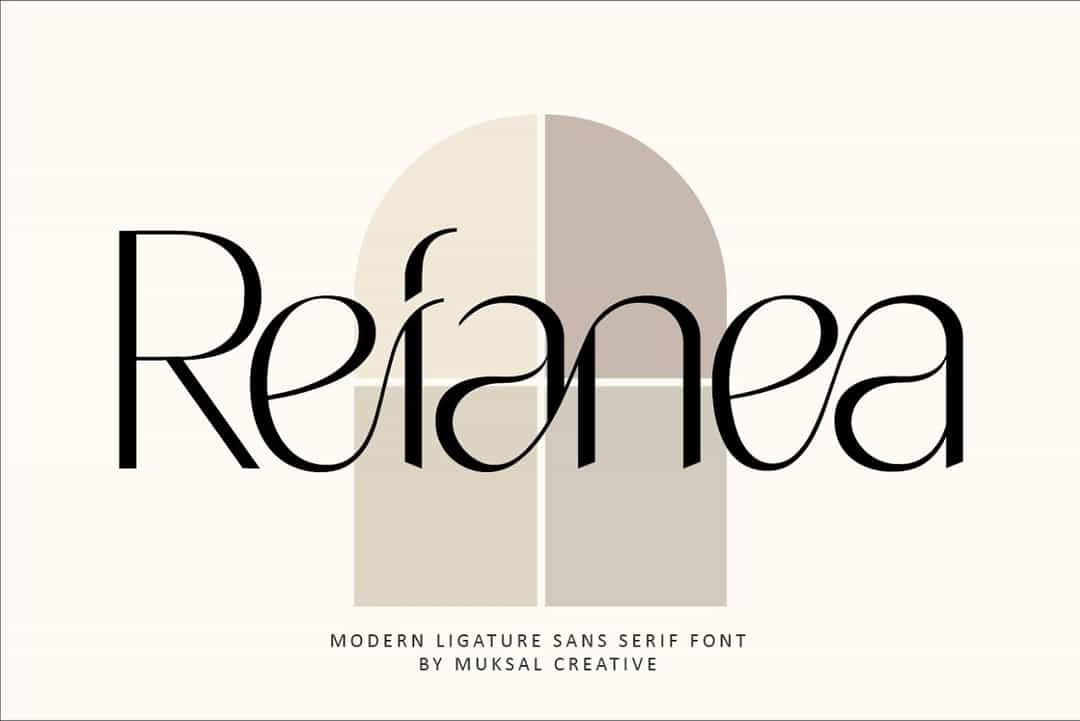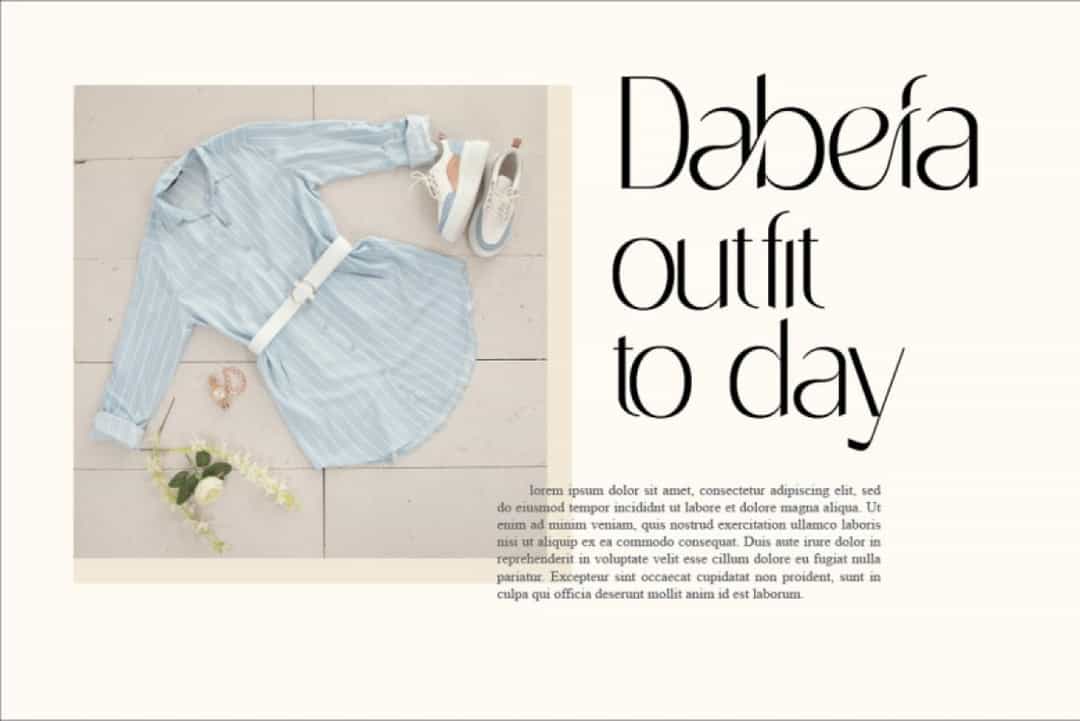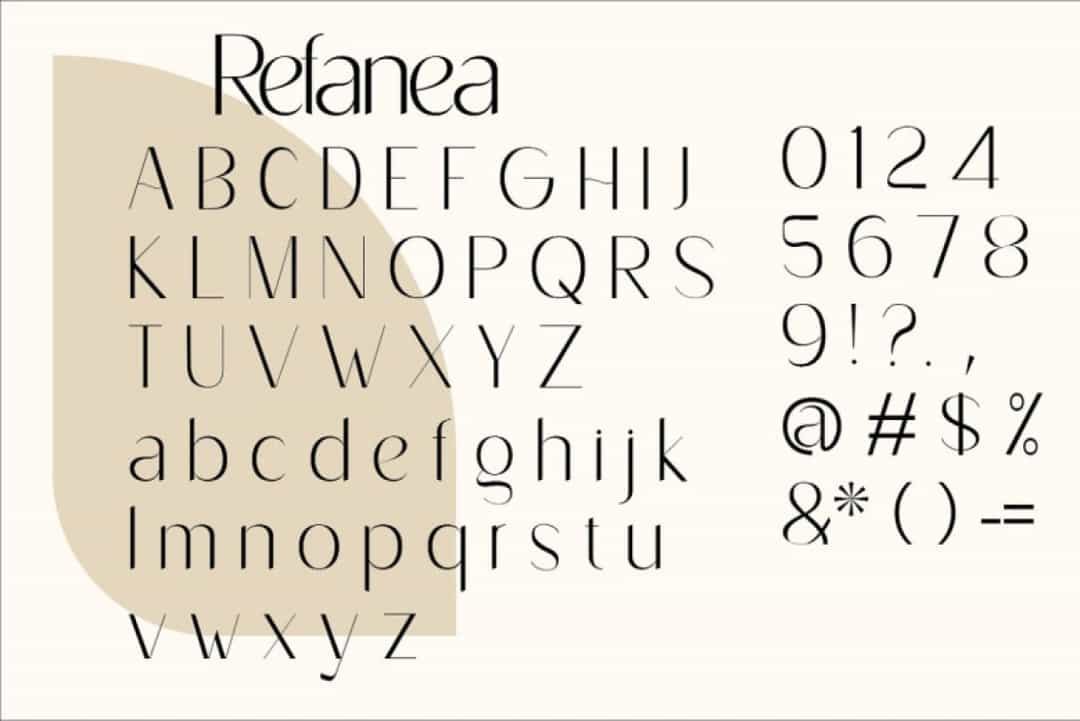
Discover Refanea Font, part of the Sans Serif collection—a versatile and unique font perfect for adding a personal touch to your projects. Download it for free and enjoy crafting designs with style, from invitations to social media posts. This font is available exclusively for personal use, giving you the freedom to create without limits. Unlock your creativity with Refanea Font today!
Rafanea is a versatile font with special characters and decorative elements, along with multilingual support. Ideal for logo design, clothing branding, packaging of products magazine headers or simply using as text overlay on any background picture!